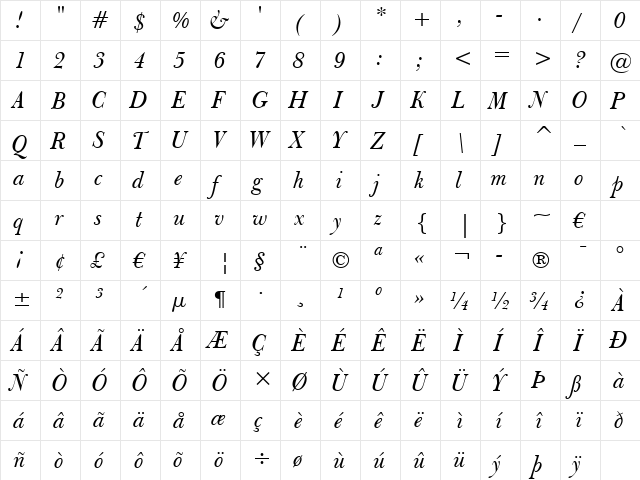
Bulmer BT Italic
Bulmer BT offers clean, dependable letterforms without strong stylistic allegiance, making it a practical choice for designers who need flexibility. The slanted form adds forward momentum and visual energy.